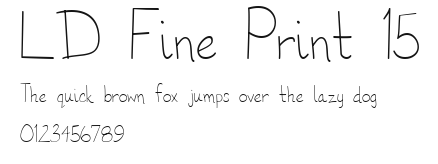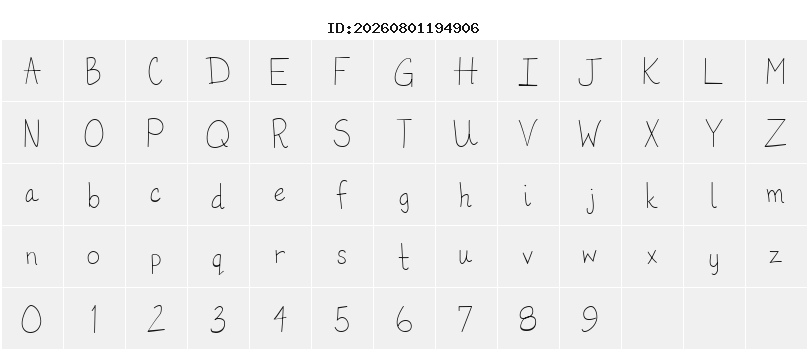
• Font Name: LD Fine Print 15
• Full Font Name: LD Fine Print 15
About LD Fine Print 15.ttf
LD Fine Print 15.ttf is a modern, elegant sans-serif font designed for ultimate readability and visual harmony. Perfect for branding, headlines, web design, and print materials.